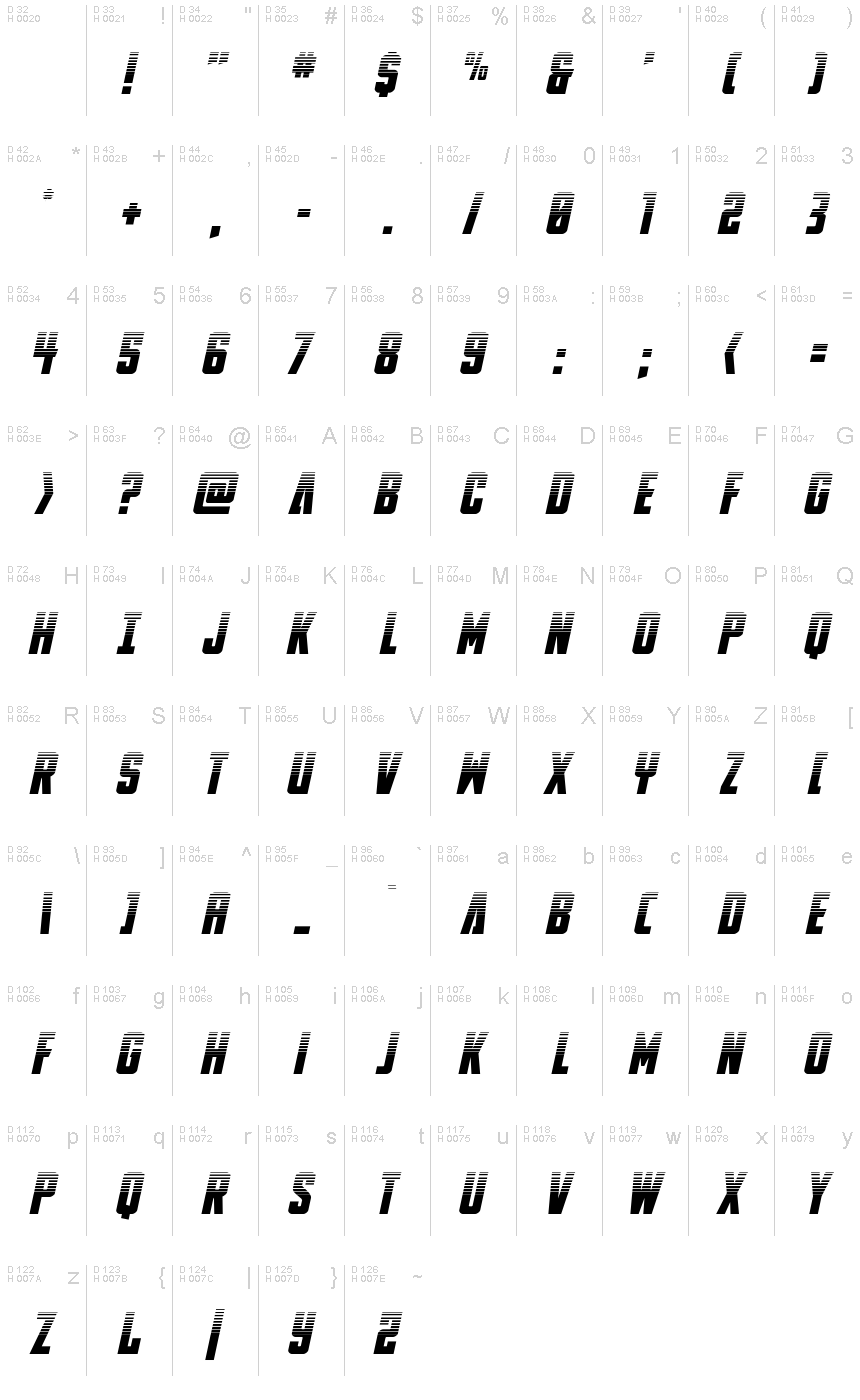
DiaClone Halftone Italic
DiaClone Halftone Italic by Iconian Fonts is a display font that encapsulates modernity with a techno twist. Its condensed form exudes sleekness, while the halftone pattern within each character injects a vibrant, digital energy, reminiscent of the pixelated aesthetics of early computer screens and urban electronic billboards. Crafted with an italic slant, it projects motion and dynamism, making it an ideal choice for forward-thinking brands and creative projects that aim to stand out.
This font's unique style lends itself to tech-savvy contexts or futuristic designs where a sense of advancement and innovation is key. Ideal for eye-catching headlines, logos, gaming interfaces, or any visual platform where a statement needs to be made with confidence and flair. DiaClone Halftone Italic serves as both a nod to nostalgia and an embrace of contemporary design trends.